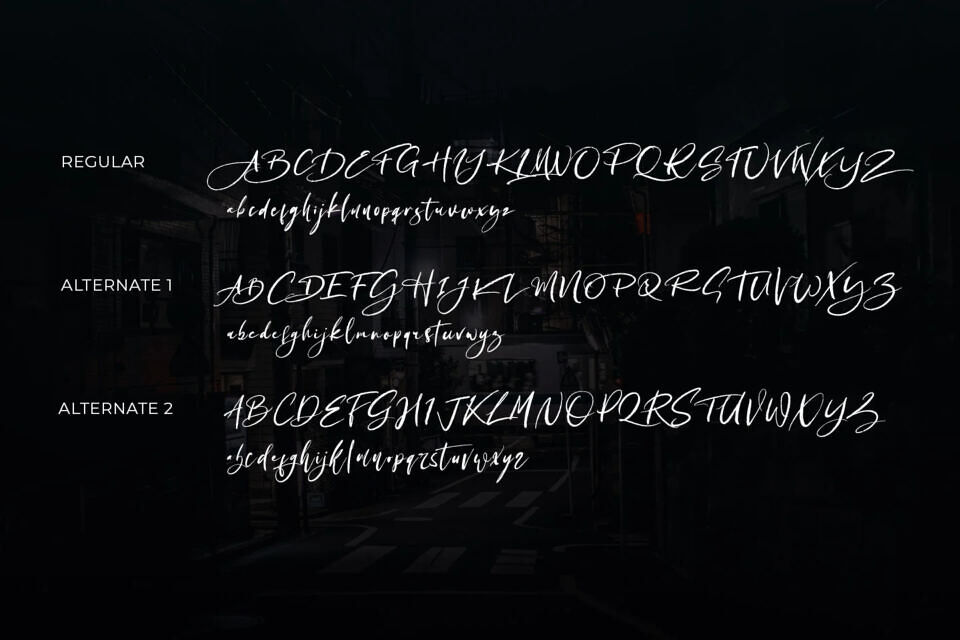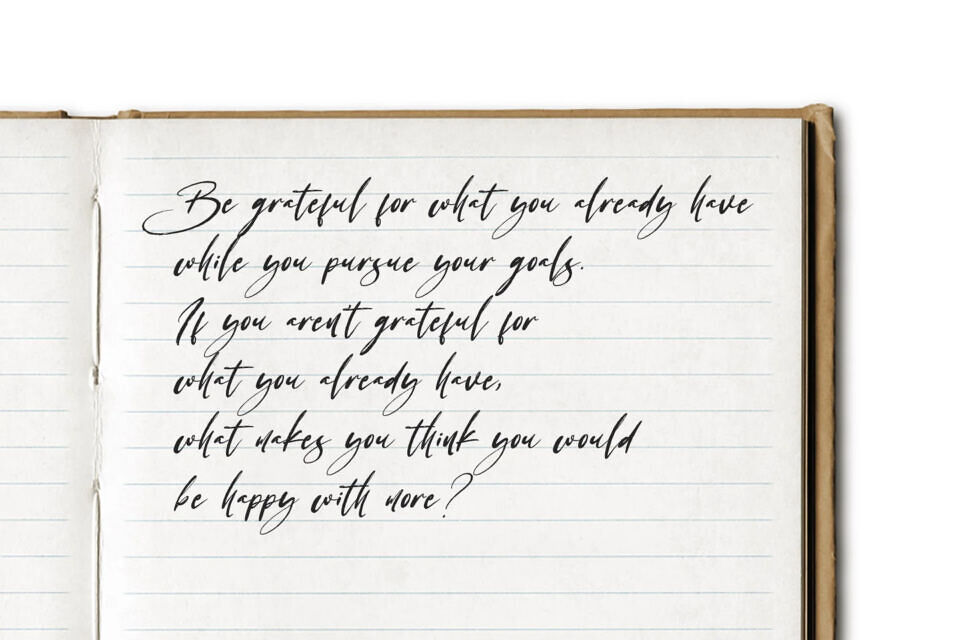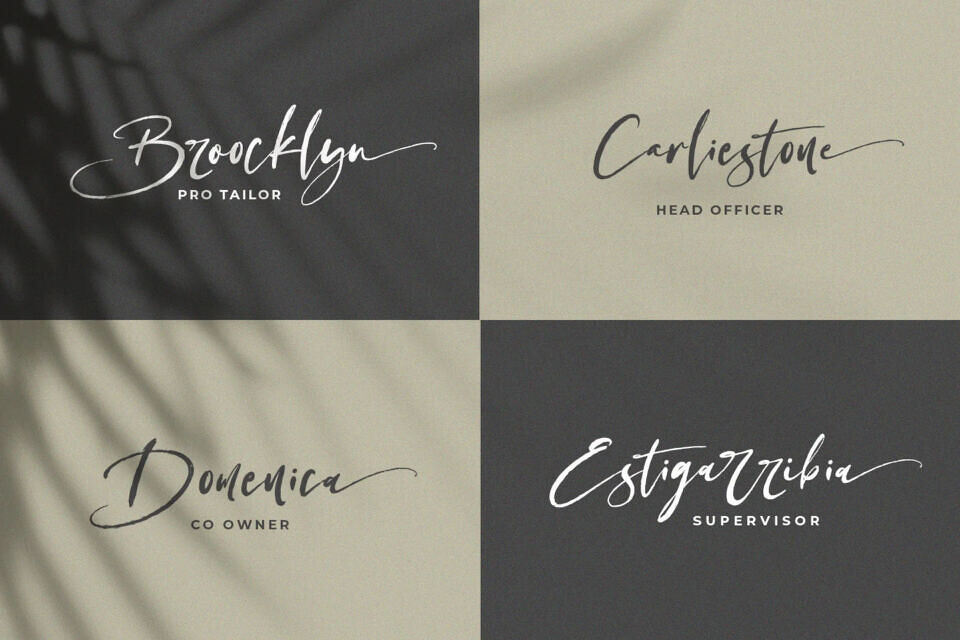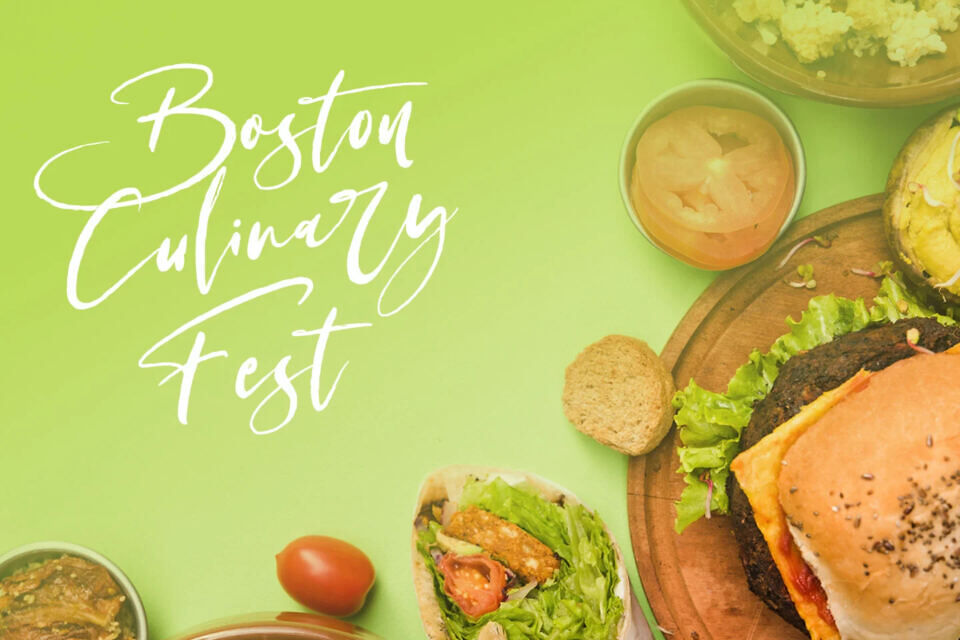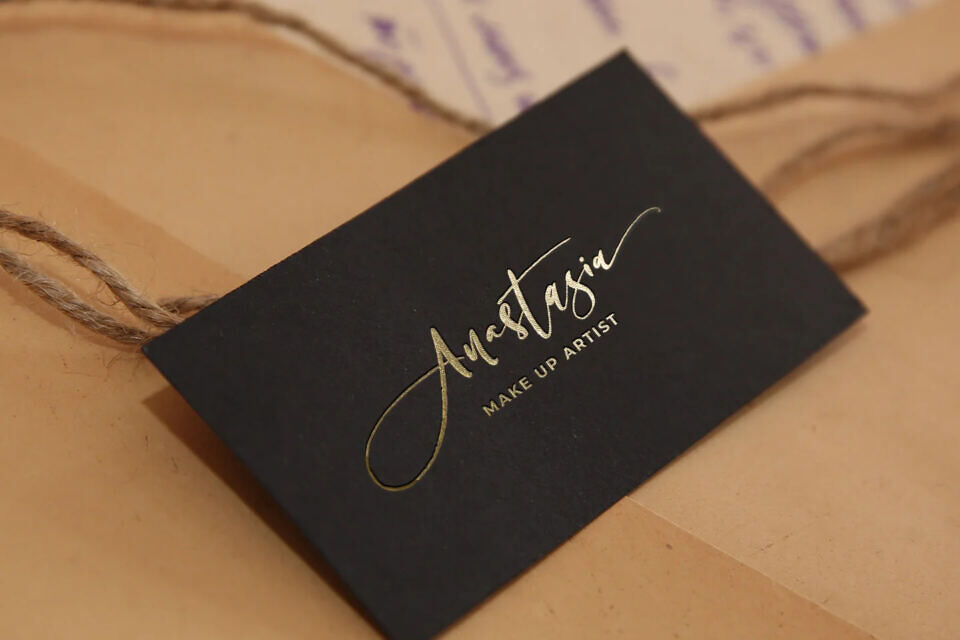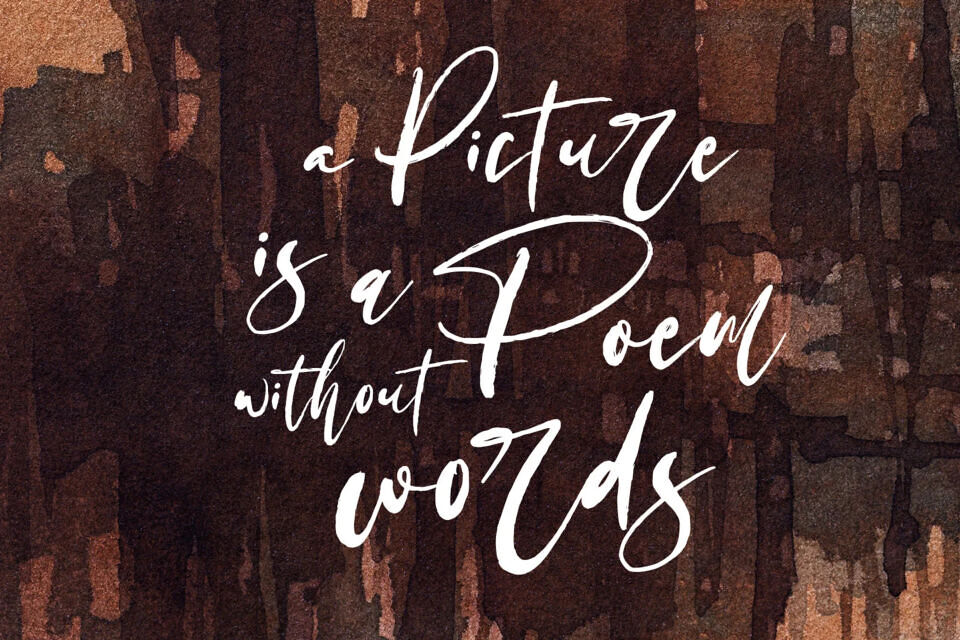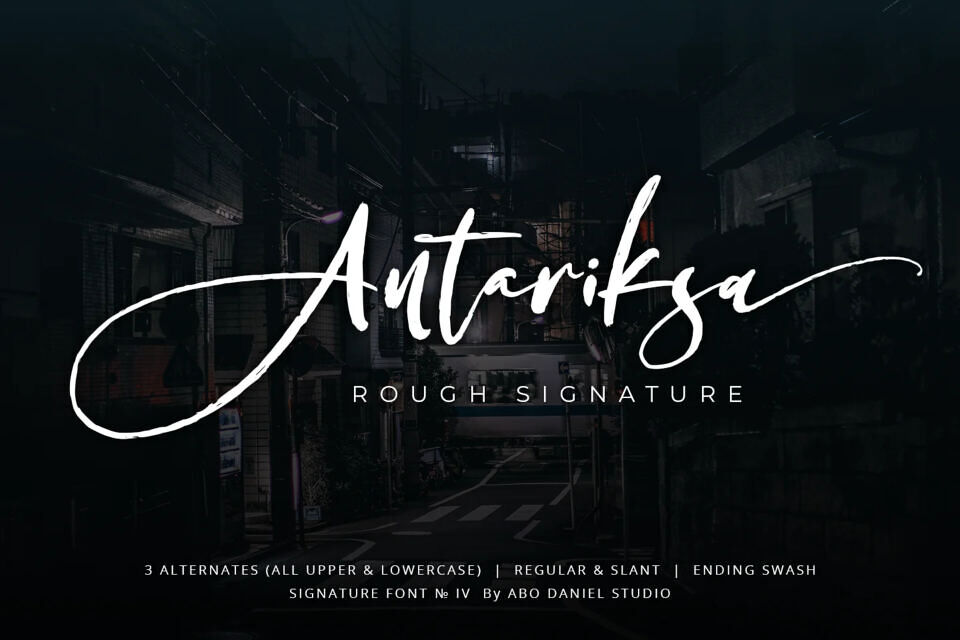
Antariksa Font
Antariksa Font is great for Signature, logos, branding, advertising, titling, quotes, and more. You can combine the alternate as you like. It will be the perfect combination. The ending swashes make this product so complete and perfect.